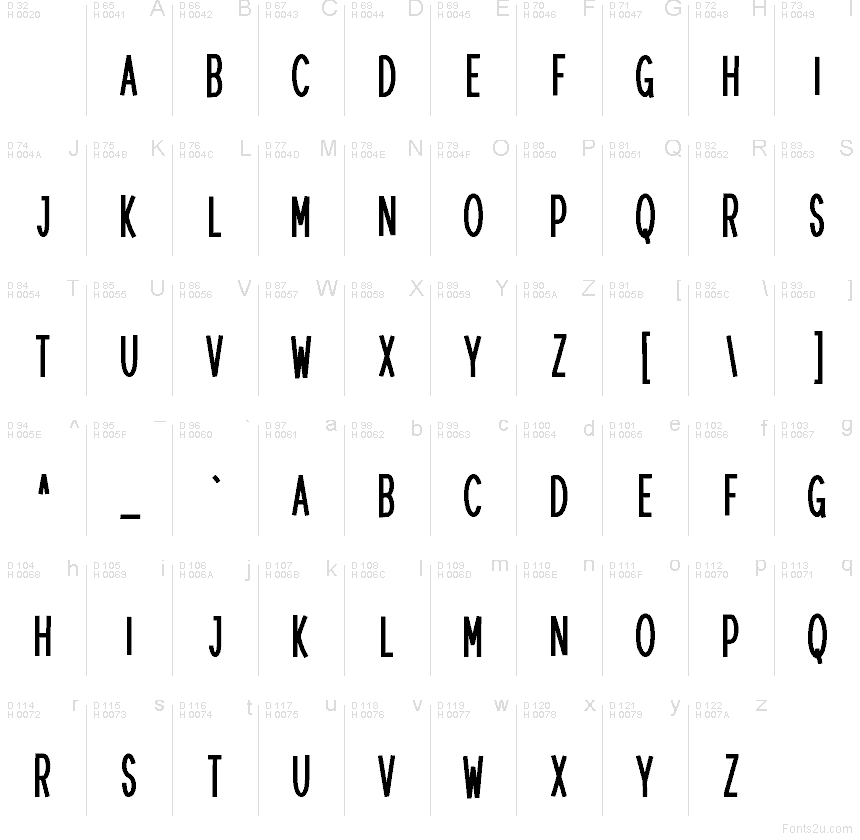
Wealthy font by Hanna Bie is a free comic display typeface with tall, skinny letters that look like they’ve been stretched straight out of a bold graphic novel panel. The shapes are sharp and slightly irregular, giving each word a jittery, energetic stance, like it’s buzzing on caffeine. Heavy black strokes and narrow proportions pack a lot of attitude into very little horizontal space, so even short titles feel loud and punchy.
Using Wealthy, this free font shines on posters, zines, indie comics, gig flyers, game titles, YouTube thumbnails, and edgy branding where you want a loud, slightly chaotic voice. Its condensed build makes it great when space is tight but impact matters. Pair Wealthy with a simple, rounded sans serif for body text, and let this spiky comic display typeface stay big and bold in headlines for maximum punch.